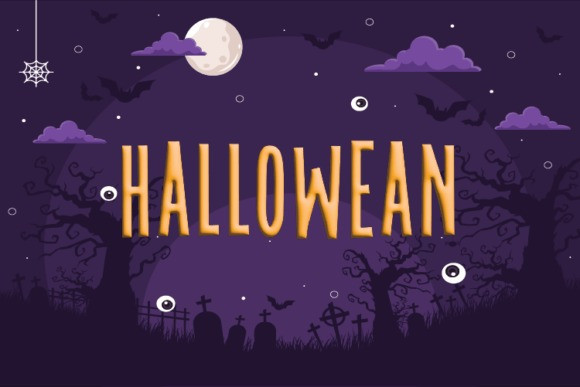
Mood Night Display Font
Mood Night Display Font is a bold display font with a strong, eye-catching style. Its thick, solid letters make it perfect for grabbing attention and making a statement.